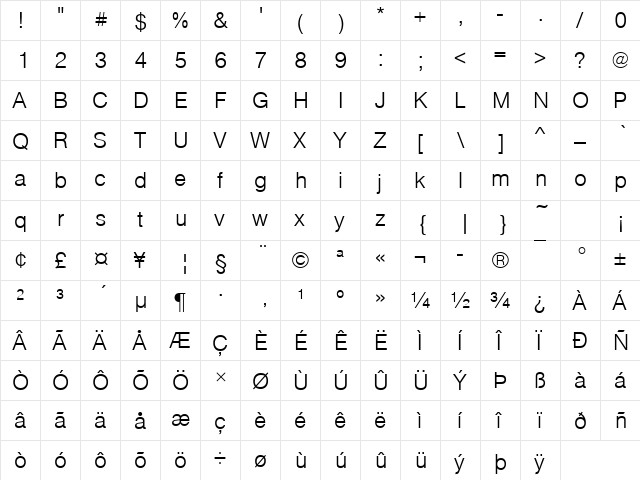
Nimbus Sans Becker TLig Regular
Design Context for Nimbus Sans Becker TLig Typeface
Nimbus Sans Becker TLig offers clean, dependable letterforms without strong stylistic allegiance, making it a practical choice for designers who need flexibility.